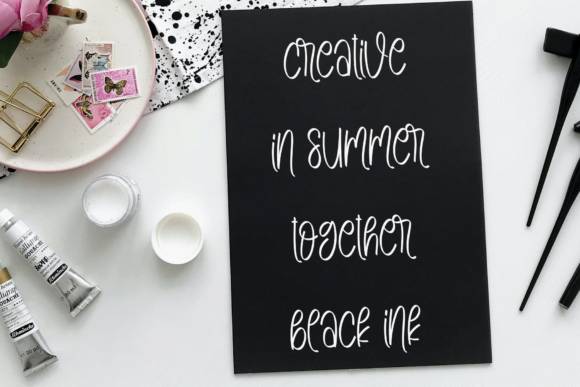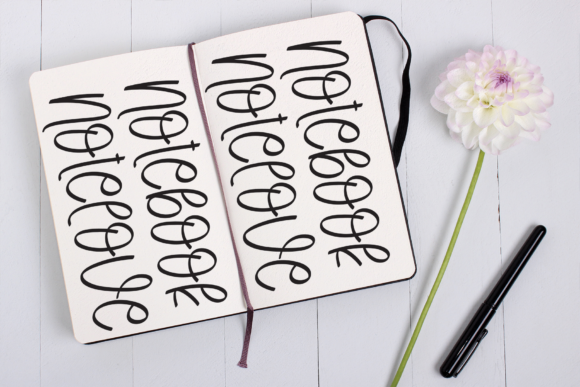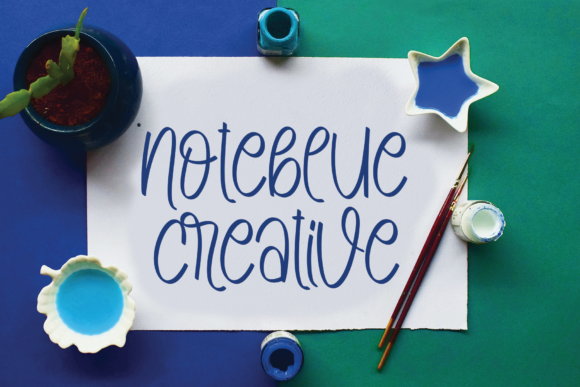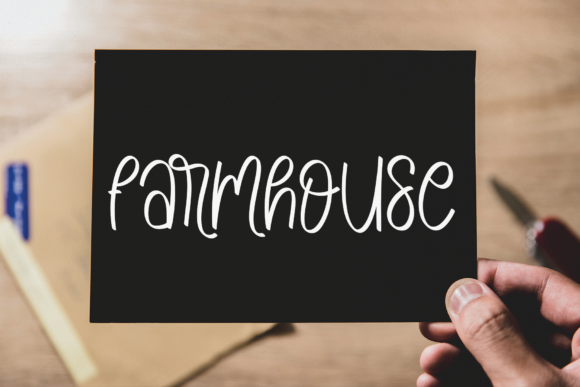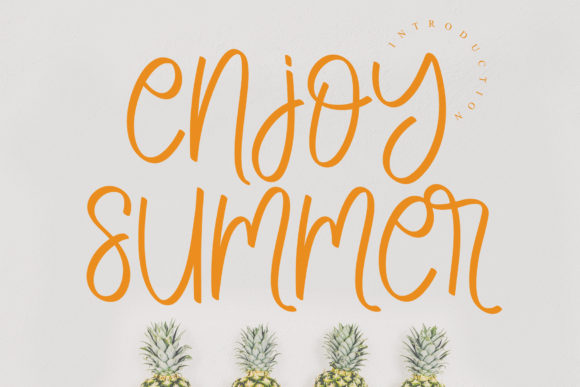
Enjoy Summer Font: Add a Touch of Whimsy to Your Designs
Summer is here, and what better way to capture its carefree spirit than with a font that’s as playful as it is charming? Look no further than the Enjoy Summer font, a lovely script font that will add a touch of magic to your designs. In this article, we’ll dive into the features of this delightful font and explore how you can use it to make your creative projects stand out.
What is Enjoy Summer Font?
Enjoy Summer is a beautiful script font that boasts charming, playful characters that seem to dance along the baseline. Its whimsical design makes it perfect for adding a personal touch to your designs, whether you’re working on a summer-themed project or simply want to inject some fun and personality into your work.
Key Features of Enjoy Summer Font
- Playful and charming characters: Each letter in the Enjoy Summer font has been carefully crafted to exude a sense of playfulness and charm, making it perfect for designs that require a touch of whimsy.
- Script font style: The Enjoy Summer font features a beautiful script style that’s perfect for adding a touch of elegance and sophistication to your designs.
- Dancing baseline: The characters in the Enjoy Summer font seem to dance along the baseline, adding a sense of movement and energy to your designs.
- Easy to read: Despite its playful design, the Enjoy Summer font is easy to read, making it perfect for use in a variety of design projects, from titles and headings to body text.
How to Use Enjoy Summer Font in Your Designs
The Enjoy Summer font is incredibly versatile and can be used in a wide range of design projects, including:
- Summer-themed designs: Use the Enjoy Summer font to create eye-catching summer-themed designs, such as posters, flyers, and social media graphics.
- Wedding and event designs: The Enjoy Summer font’s elegant script style makes it perfect for use in wedding and event designs, such as invitations, programs, and signage.
- Branding and packaging: Add a touch of personality to your brand with the Enjoy Summer font, using it in logos, packaging, and marketing materials.
- Digital and print projects: The Enjoy Summer font can be used in a variety of digital and print projects, including brochures, magazines, and website headers.
Tips for Getting the Most Out of Enjoy Summer Font
To get the most out of the Enjoy Summer font, try the following tips:
- Experiment with colors: The Enjoy Summer font looks great in a variety of colors, so don’t be afraid to experiment and find the perfect hue for your design.
- Pair with contrasting fonts: Pair the Enjoy Summer font with contrasting fonts to create visual interest and add depth to your design.
- Use it sparingly: While the Enjoy Summer font is beautiful, it can be overwhelming if used too much. Use it sparingly to create a focal point in your design.
The Enjoy Summer font is a lovely script font that’s perfect for adding a touch of whimsy and charm to your designs. With its playful characters, elegant script style, and dancing baseline, it’s sure to make your creative projects stand out. Whether you’re a designer, crafter, or simply someone who loves to create, the Enjoy Summer font is a must-have addition to your font collection.